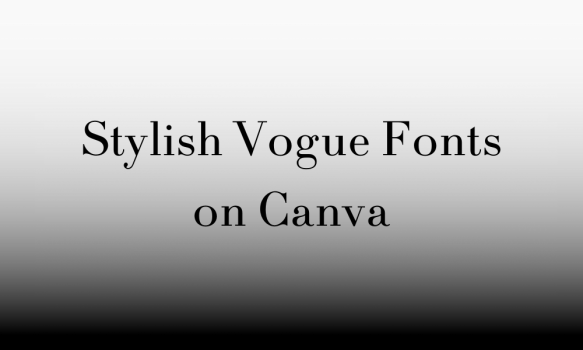
Vogue, the epitome of fashion and elegance, has set the bar high with its iconic typography. But Canva, a popular design tool, offers a range of fonts that capture the essence of Vogue’s chic and polished style. Whether you’re creating a magazine cover, a fashion portfolio, or a stylish advertisement, choosing a Vogue-inspired font can take your design to new heights of sophistication. This article explores eight stylish fonts available on Canva that embody the Vogue spirit, each with its unique flavor of the high-fashion world. These fonts blend form and function to enhance the visual appeal of your projects. Let’s discover how these typefaces can transform your designs into works of art.
1. Didact Gothic
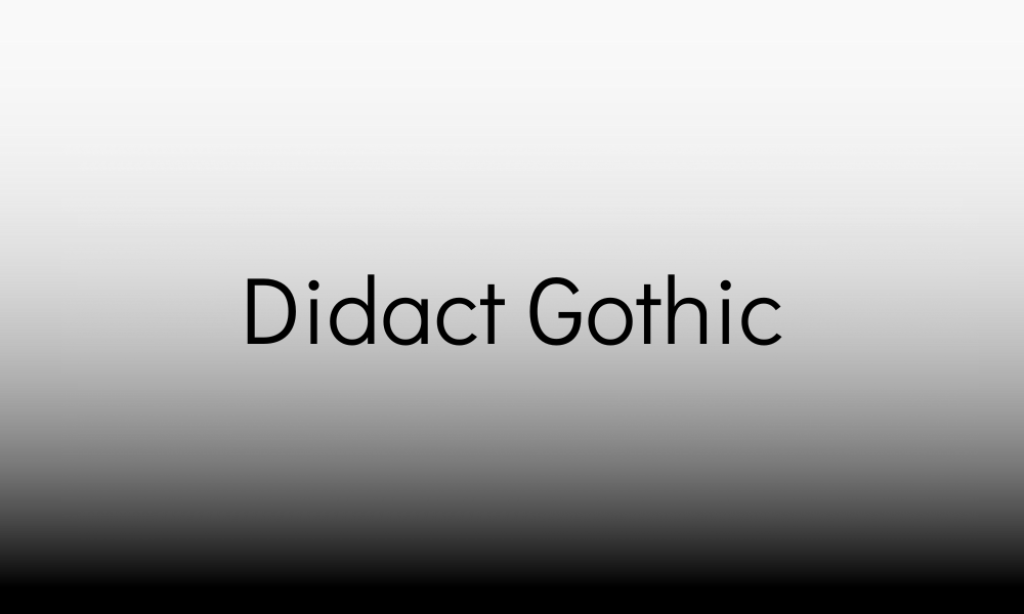
Didact Gothic is a sans-serif typeface with a clean and straightforward appearance. Its uniform and slim letterforms give it a modern and uncluttered look.
Stylish Vogue Qualities: Its simplicity and readability make it akin to the Vogue font, offering a sleek and professional appearance perfect for high-fashion contexts. The minimalistic design aligns with the sophisticated and refined aesthetics of Vogue.
2. Playfair Display
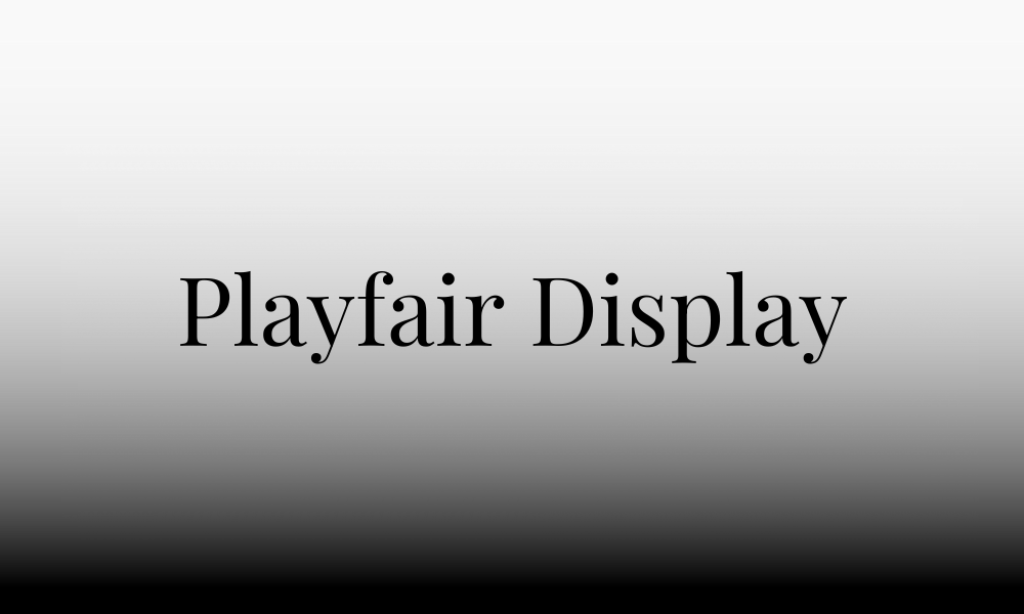
Playfair Display is a serif font with high contrast between thick and thin strokes, characteristic of the neoclassical style.
Stylish Vogue Qualities: The elegant and dramatic letterforms of Playfair Display evoke a sense of timelessness and luxury, reminiscent of the Vogue font. Its sophisticated serifs and graceful curves make it ideal for fashion editorial headlines.
3. Bodoni FLF
Bodoni FLF is a variation of the classic Bodoni font, known for its dramatic contrast between thin and thick lines and its sharp, clean serifs.
Stylish Vogue Qualities: This font captures the high-contrast, chic look associated with Vogue’s typography. Its distinct style and elegant proportions make it suitable for luxurious and high-fashion branding.
4. Arvo
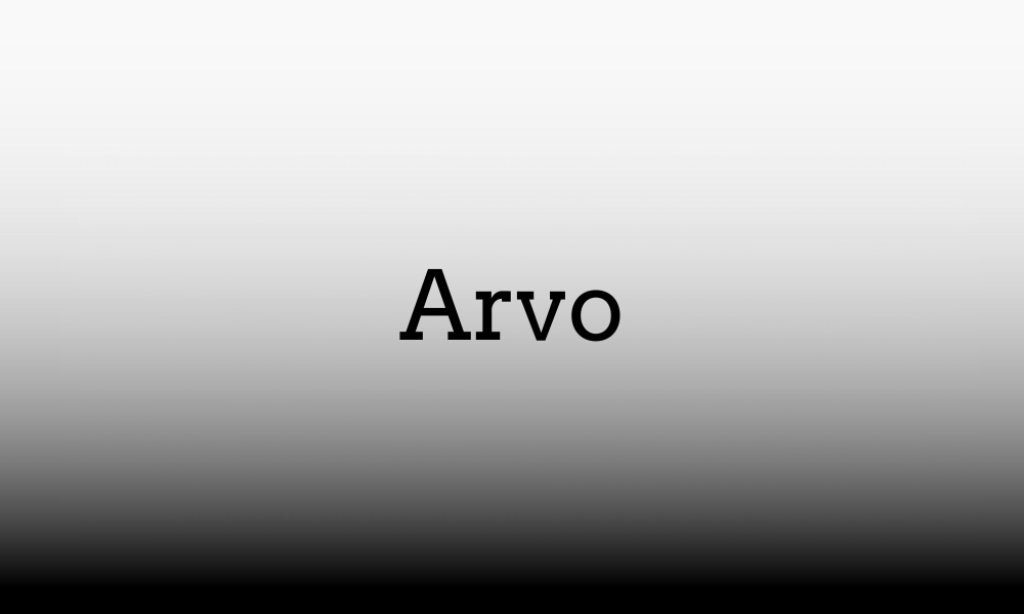
Arvo is a geometric slab-serif typeface that combines clarity with character, featuring sturdy block-like serifs.
Stylish Vogue Qualities: Arvo’s bold and assertive style brings a modern and contemporary flair that aligns with Vogue’s innovative and trend-setting nature. Its strong presence makes it a good choice for impactful headlines.
5. Raleway
Raleway is an elegant sans-serif font with a clean and minimalistic design. It has a balanced structure and is often used for its readability and sleek appearance.
Stylish Vogue Qualities: Raleway’s understated elegance and versatility make it akin to the Vogue font, embodying the chic and polished look of high-fashion magazines.
6. Boston Angel
Boston Angel is a script font that features flowing, hand-drawn letterforms with a personal touch.
Stylish Vogue Qualities: Although not a typical choice for Vogue’s main typography, Boston Angel’s stylish and ornate script can complement the magazine’s aesthetic in decorative and accent text, adding a touch of elegance and exclusivity.
7. Prata
Prata is a serif font with tall, elegant letterforms and distinctive sharp serifs, lending it a sophisticated and contemporary look.
Stylish Vogue Qualities: Its high-contrast design and sleek appearance resonate with the luxurious and high-fashion image of Vogue, making Prata a stylish choice for editorial and headline content.
8. Didot LP
Didot LP closely resembles the typeface used by Vogue, with its high contrast between thick and thin strokes and its refined, classical serifs.
Stylish Vogue Qualities: Representing the quintessence of Vogue’s typographic identity, Didot LP embodies the elegance, sophistication, and timeless beauty characteristic of the magazine, making it the epitome of Vogue-style fonts.
9. Antic Didone
Antic Didone is a serif font that emphasizes strong vertical lines and sharp serifs, reflecting the neoclassical style of the Didone typefaces.
Stylish Vogue Qualities: With its fine detail and high contrast between thick and thin strokes, Antic Didone exudes elegance and sophistication. Its clean and classic appearance makes it a perfect choice for high-fashion content, closely aligning with the refined aesthetic of Vogue magazine.
10. Tenor Sans
Tenor Sans is a sans-serif font with a modern and geometric structure, offering a clear and legible appearance.
Stylish Vogue Qualities: Its simplicity and functionality make Tenor Sans a stylish option for Vogue-inspired designs. The font’s clean lines and uncluttered form give it a contemporary look that complements the sleek and fashionable layouts typical of Vogue’s editorial design.
11. Cardo
Cardo is a serif font designed for scholarly and literary texts, featuring wide, easy-to-read letters and a classic style.
Stylish Vogue Qualities: The font’s timeless elegance and academic charm provide a sophisticated backdrop that mirrors Vogue’s intellectual and high-culture content. Cardo’s refined serifs and balanced proportions echo the luxurious and polished feel of Vogue’s branding.
12. Abril
Abril is a serif font that combines strong and sturdy lines with graceful curves, offering a striking contrast and a dynamic reading experience.
Stylish Vogue Qualities: With its bold presence and elegant details, Abril captures the dynamic and expressive nature of Vogue’s typography. It stands out for editorial headlines and luxury advertising, embodying the magazine’s blend of modernity and classic beauty.
13. Beauty Salon Sans
Beauty Salon Sans is a sans-serif font with a playful and modern aesthetic, characterized by its rounded forms and clean lines.
Stylish Vogue Qualities: This font brings a fresh and trendy vibe, reminiscent of the innovative and avant-garde aspects of Vogue. Its stylish and accessible appearance makes it suitable for lifestyle and beauty features, aligning with the magazine’s cutting-edge and fashionable essence.